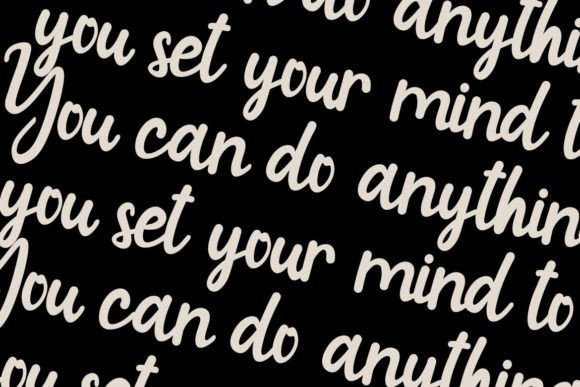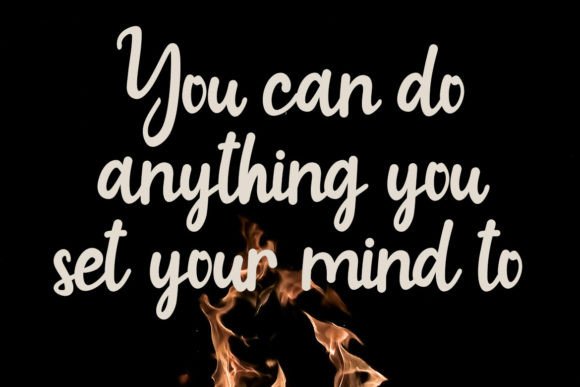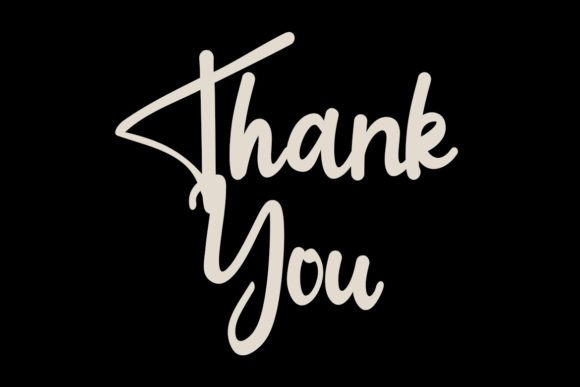
Introduction to Shally Font
Have you ever been working on a creative project, pouring your heart and soul into every detail, and then, suddenly, you stumble upon the perfect font that brings everything together? For designers, this moment is pure magic. It’s the moment when all the elements fall into place, and the design starts to feel truly alive. For me, that moment came when I discovered the enchanting Shally Font, a beautiful handwritten script that adds a touch of elegance to any project.
With its natural flow and beautiful style, Shally Font is a design resource that’s hard to resist. Whether you’re working on a wedding invitation, a product label, or a social media post, this font is sure to add a personal touch that sets your design apart. And the best part? It’s available for free download, making it an accessible and valuable addition to any designer’s toolkit.
Key Features of Shally Font
- High-quality, professional font design perfect for creative projects, offering a unique touch to any design.
- Features a transparent background, allowing for easy integration with any design element.
- Comes in a range of sizes and resolutions, ensuring optimal display on various devices and platforms.
- Unique, handcrafted design elements that set it apart from standard fonts, making it an excellent choice for designers seeking to add a personal touch.
- Perfect for use in a variety of design projects, including graphics, logos, and typography-based designs.
Honest Review: Shally Font
As a designer, I’m always on the lookout for high-quality fonts to elevate my creative projects. Recently, I had the chance to try out the Shally Font, and I’m excited to share my honest review with you.
- ✨ Unique and stylish design that adds a touch of elegance to any project
- ✨ High-quality font that’s perfect for printing and digital use
- ✨ Transparent background, making it easy to use on any design background
- ⚠️ Limited character set, which may not be suitable for extensive text-based projects
- ⚠️ Not all characters are perfectly optimized for web use, which may lead to issues with rendering
Overall, I’m impressed with the Shally Font. While it may not be perfect, it’s a great addition to any designer’s toolkit. If you’re looking for a high-quality, free font to enhance your design project, I’d definitely recommend giving it a try.
Tips for Getting the Most Out of Shally Font
Some tips for getting the most out of Shally Font include using it with a transparent background to create a clean and modern look, and experimenting with different font sizes and styles to add visual interest to your design.
Shally Font is commonly used in a variety of creative projects, including logos, business cards, and social media graphics. It’s also a great resource for designers looking for a high-quality, free download font to use in their designs.